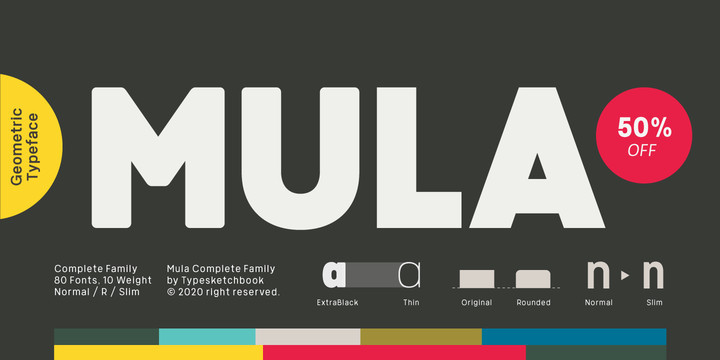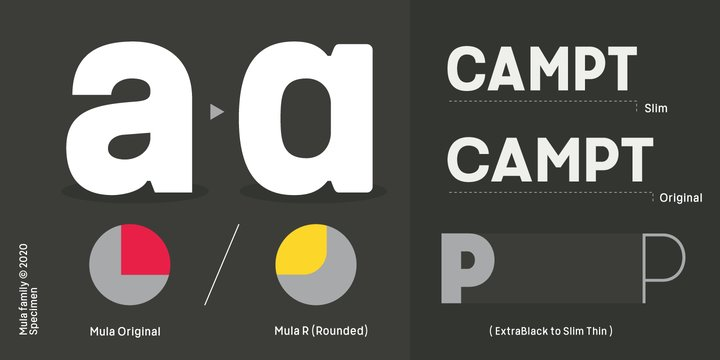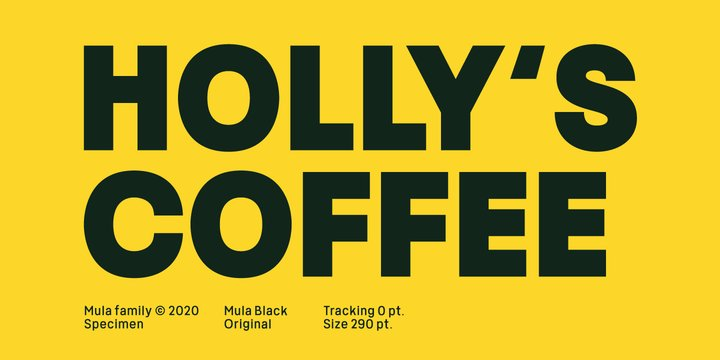
Mula Font
Mula is an extra large super family of 80 styles. Mula has such a big abundance of contrast, styles, weights, width. The complete Mula family consists of regular, slim and rounded versions for use in a multifunctional settings, especially for cooperative work, websites, magazines, editorials, publishing, packaging and more.